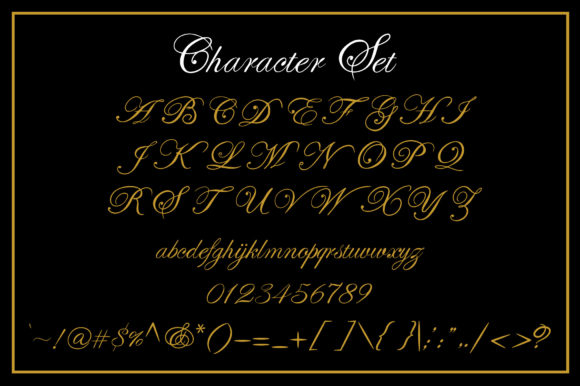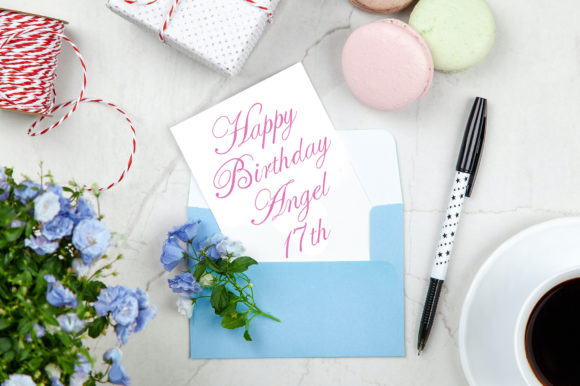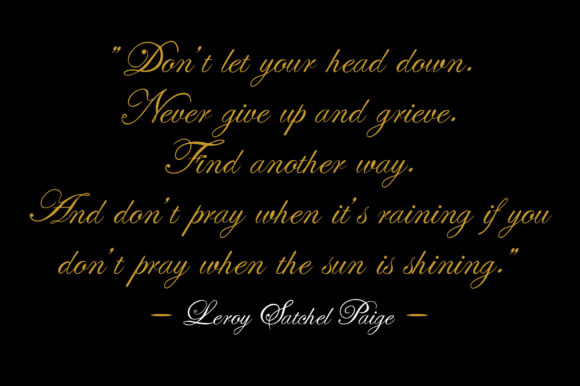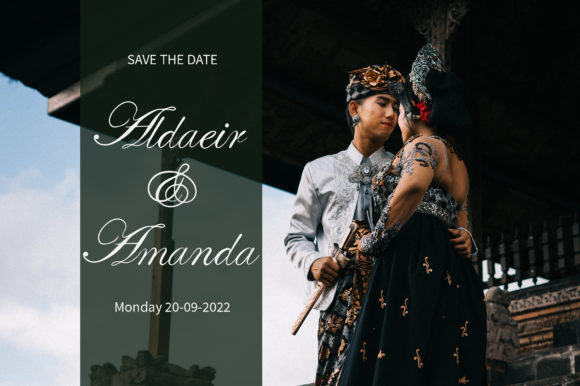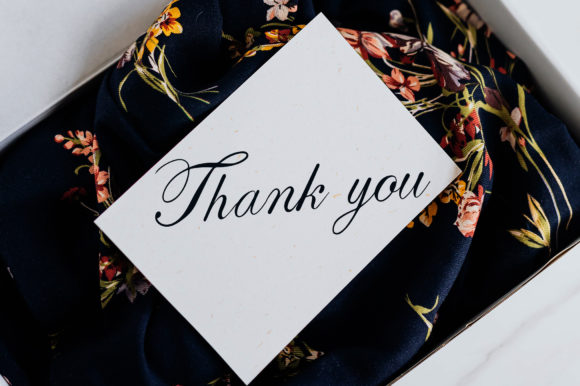
Introducing Birthdays Font: The Elegant Script Font for Your Special Occasions
Are you looking for a font that can add a touch of elegance and sophistication to your designs? Look no further than Birthdays Font, a stylish and incredibly elegant script font that is perfect for a variety of special occasions. Whether you’re designing wedding invitations, thank you cards, quotes, greeting cards, logos, business cards, or any other project that needs a handwritten touch, Birthdays Font is the perfect choice.
What Makes Birthdays Font So Special?
Birthdays Font is a beautifully crafted script font that features elegant and flowing lines, making it perfect for adding a touch of sophistication to your designs. The font is highly versatile and can be used for a wide range of projects, from formal wedding invitations to casual greeting cards. Its unique and stylish design makes it stand out from other fonts, ensuring that your designs will be noticed and remembered.
Perfect for Wedding Invitations and Stationery
Wedding invitations and stationery are a great way to showcase the elegance and sophistication of Birthdays Font. The font’s flowing lines and beautiful lettering make it perfect for creating stunning wedding invitations, thank you cards, and other stationery items. Whether you’re a designer or a crafty DIY bride, Birthdays Font is a great choice for adding a personal touch to your wedding stationery.
Birthdays Font is a great choice for designers and crafters who want to add a touch of elegance and sophistication to their projects. The font is easy to use and can be incorporated into a wide range of designs, from digital projects to handmade crafts. Whether you’re creating custom wedding invitations, greeting cards, or other paper crafts, Birthdays Font is a versatile and beautiful font that will help you create stunning designs.
Key Features of Birthdays Font
- Elegant and sophisticated design: Birthdays Font features a beautifully crafted script design that is perfect for adding a touch of elegance and sophistication to your projects.
- Highly versatile: The font can be used for a wide range of projects, from formal wedding invitations to casual greeting cards.
- Easy to use: Birthdays Font is easy to incorporate into your designs, making it perfect for designers and crafters of all skill levels.
- Unique and stylish: The font’s unique and stylish design makes it stand out from other fonts, ensuring that your designs will be noticed and remembered.
Tips for Using Birthdays Font
Here are a few tips for using Birthdays Font in your designs:
- Use it for headings and titles: Birthdays Font is perfect for creating beautiful headings and titles for your projects.
- Pair it with other fonts: The font pairs well with other fonts, making it easy to create stunning combinations.
- Experiment with different colors: Birthdays Font looks great in a variety of colors, so don’t be afraid to experiment and find the perfect color for your project.
Birthdays Font is a stylish and incredibly elegant script font that is perfect for adding a touch of sophistication and elegance to your designs. Whether you’re a designer or a crafter, this font is a great choice for a wide range of projects, from wedding invitations and stationery to greeting cards and logos. With its unique and stylish design, highly versatile nature, and ease of use, Birthdays Font is a must-have font for anyone looking to create beautiful and memorable designs.